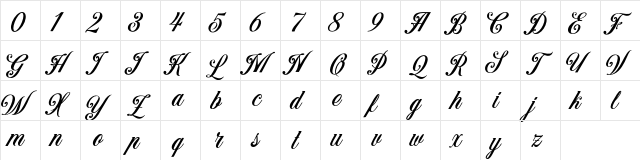
Benford DEMO Script
| Style | Script |
| Foundry | Angin Studio |
| Designer | Angin Studio |
Design Context for Benford DEMO Typeface
Benford DEMO flows with the natural rhythm of handwritten lettering, making it ideal for designs that call for warmth and personal expression.